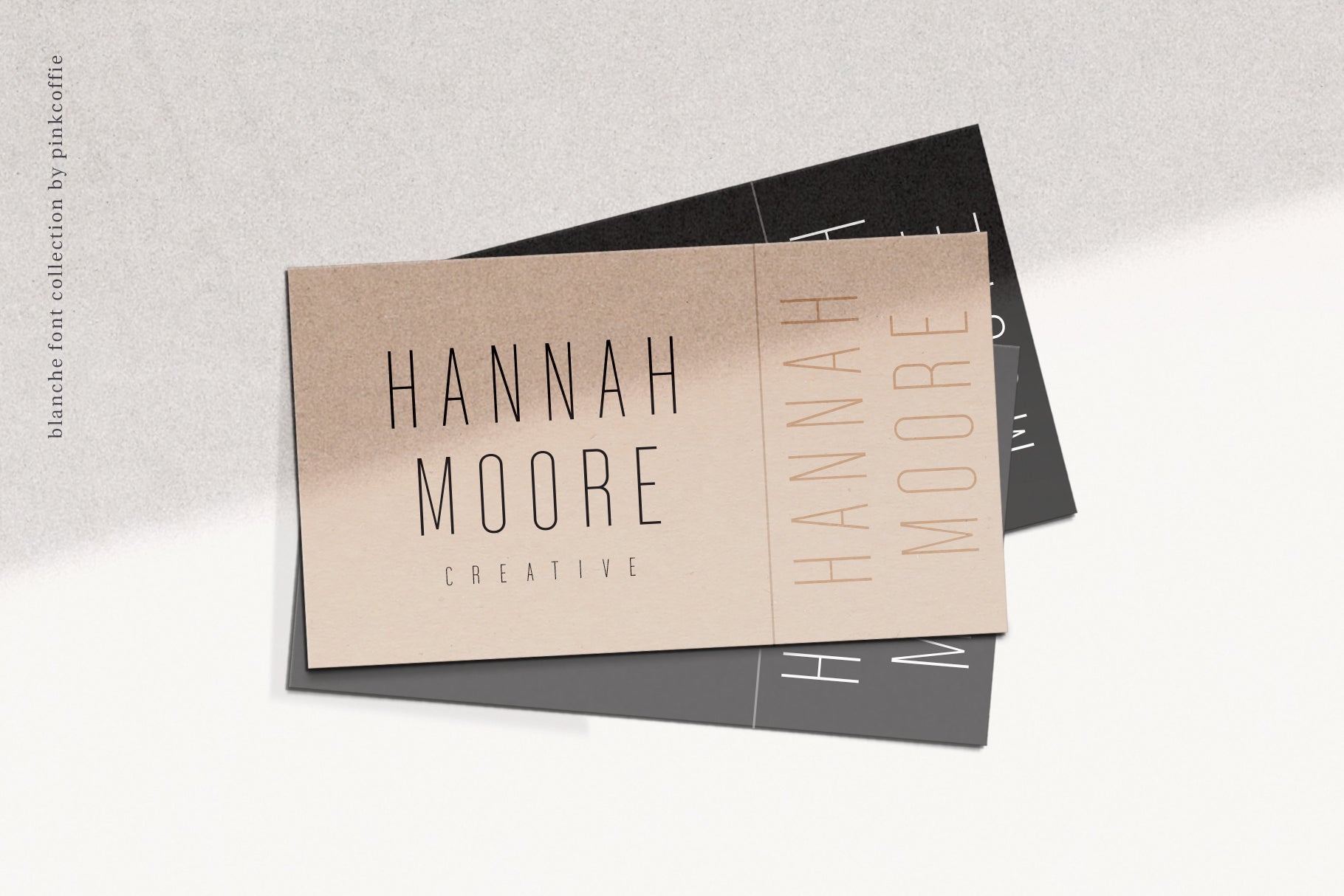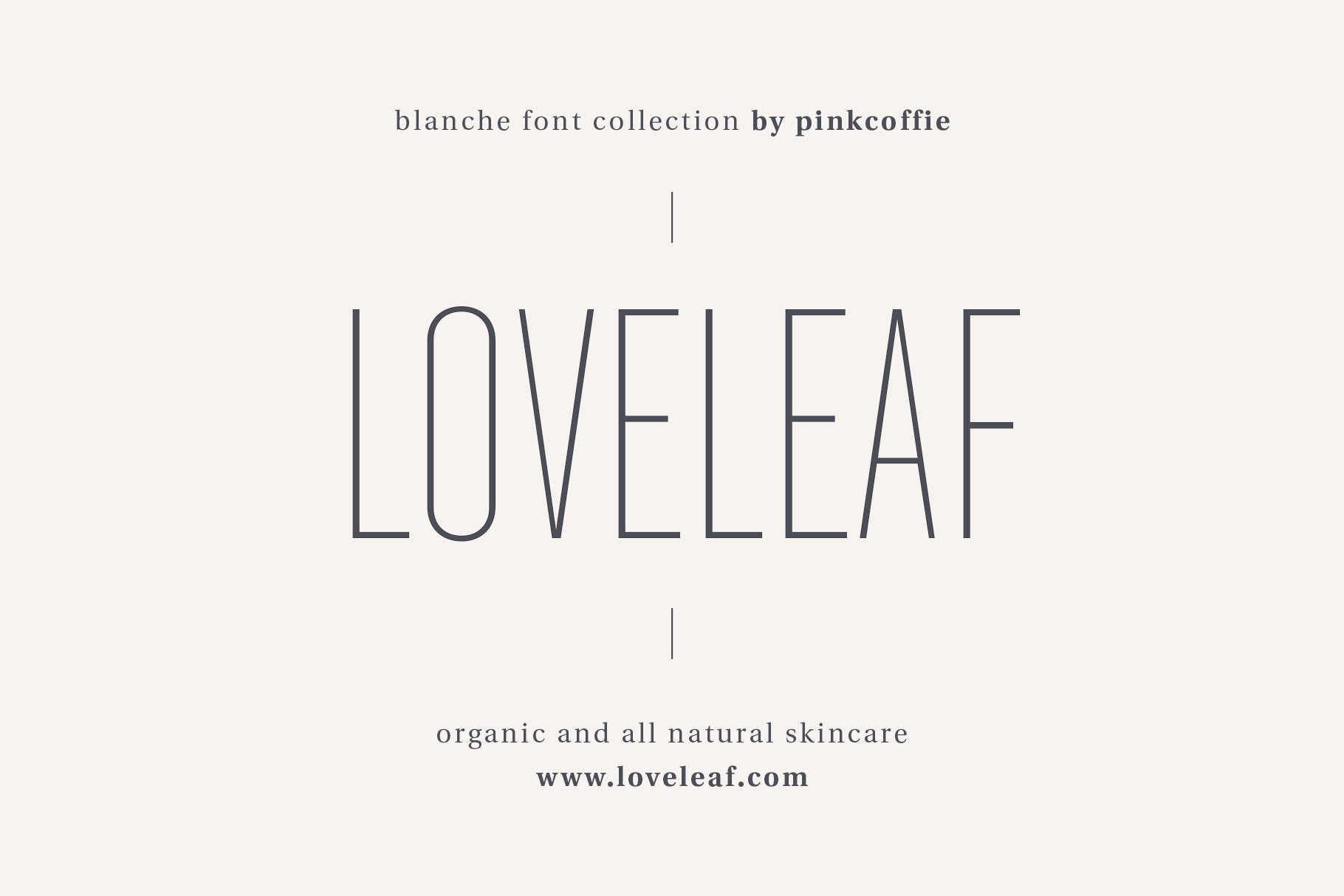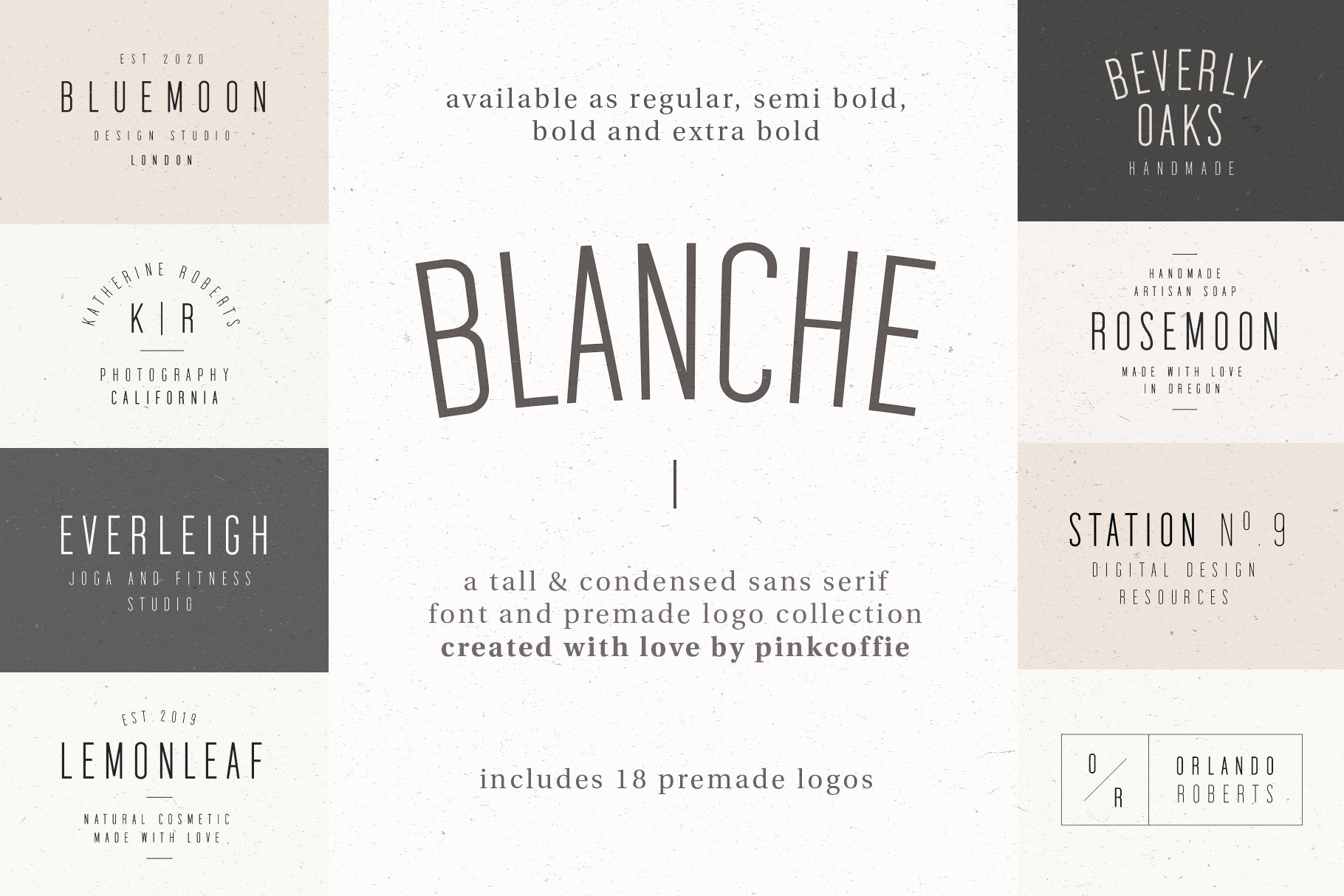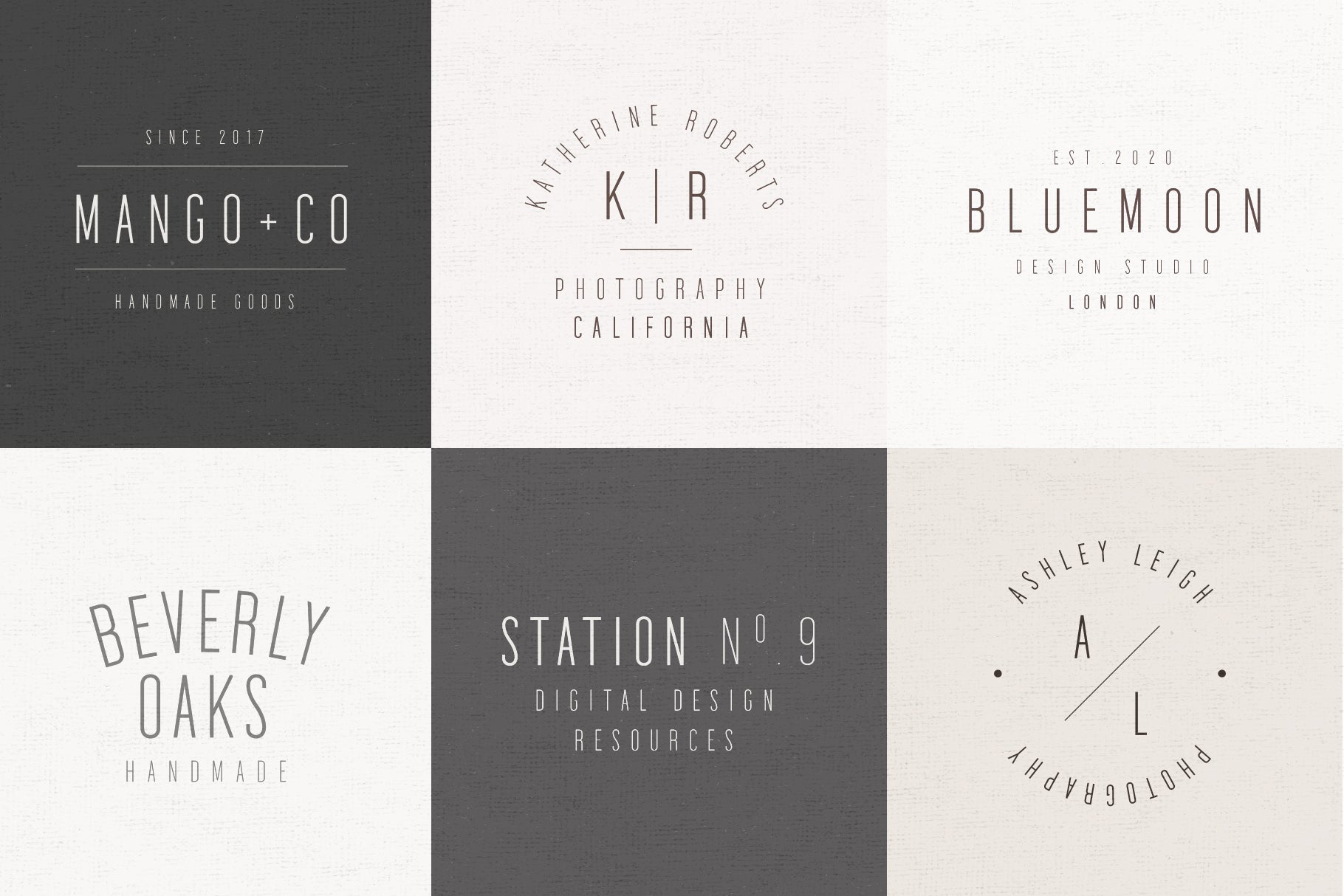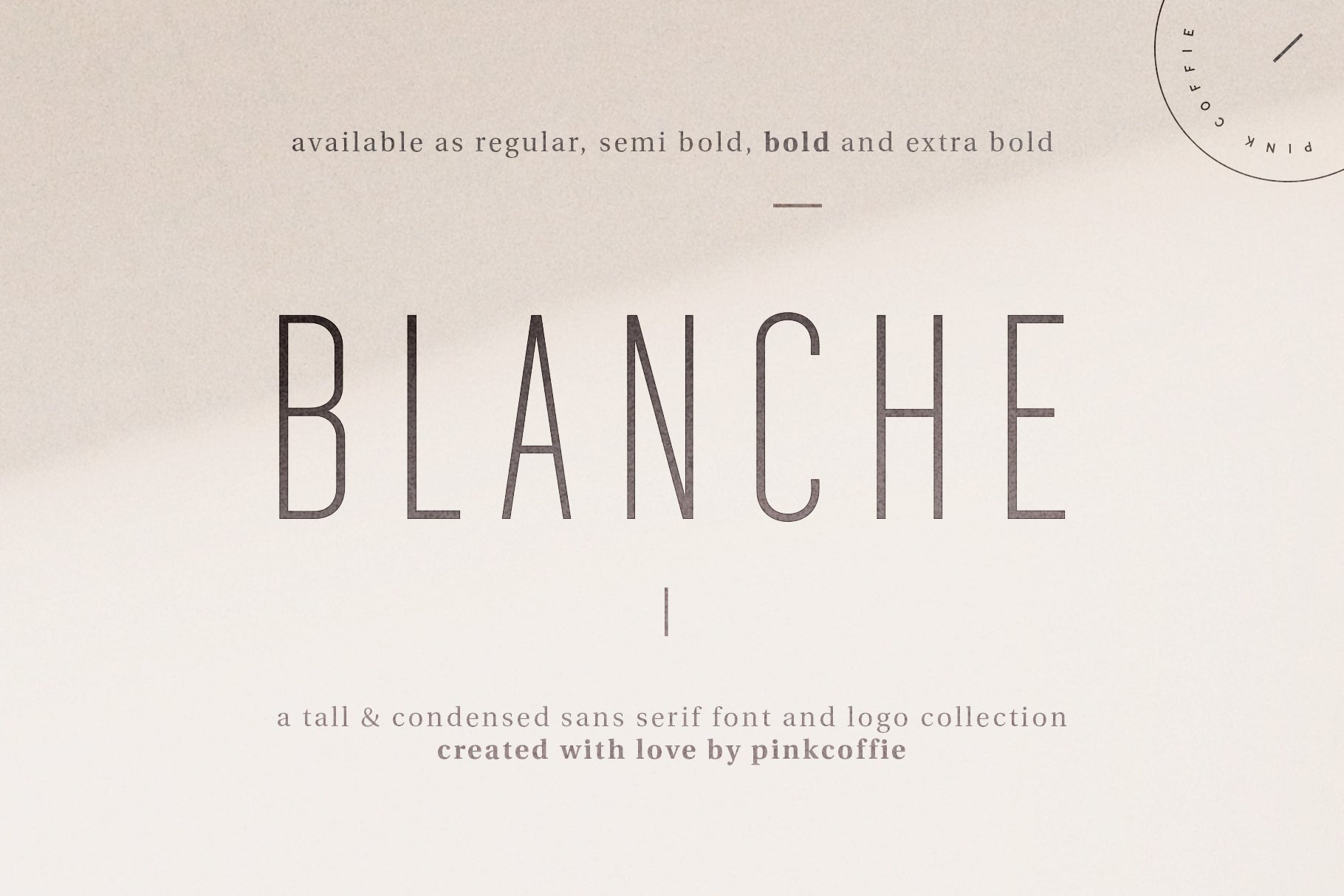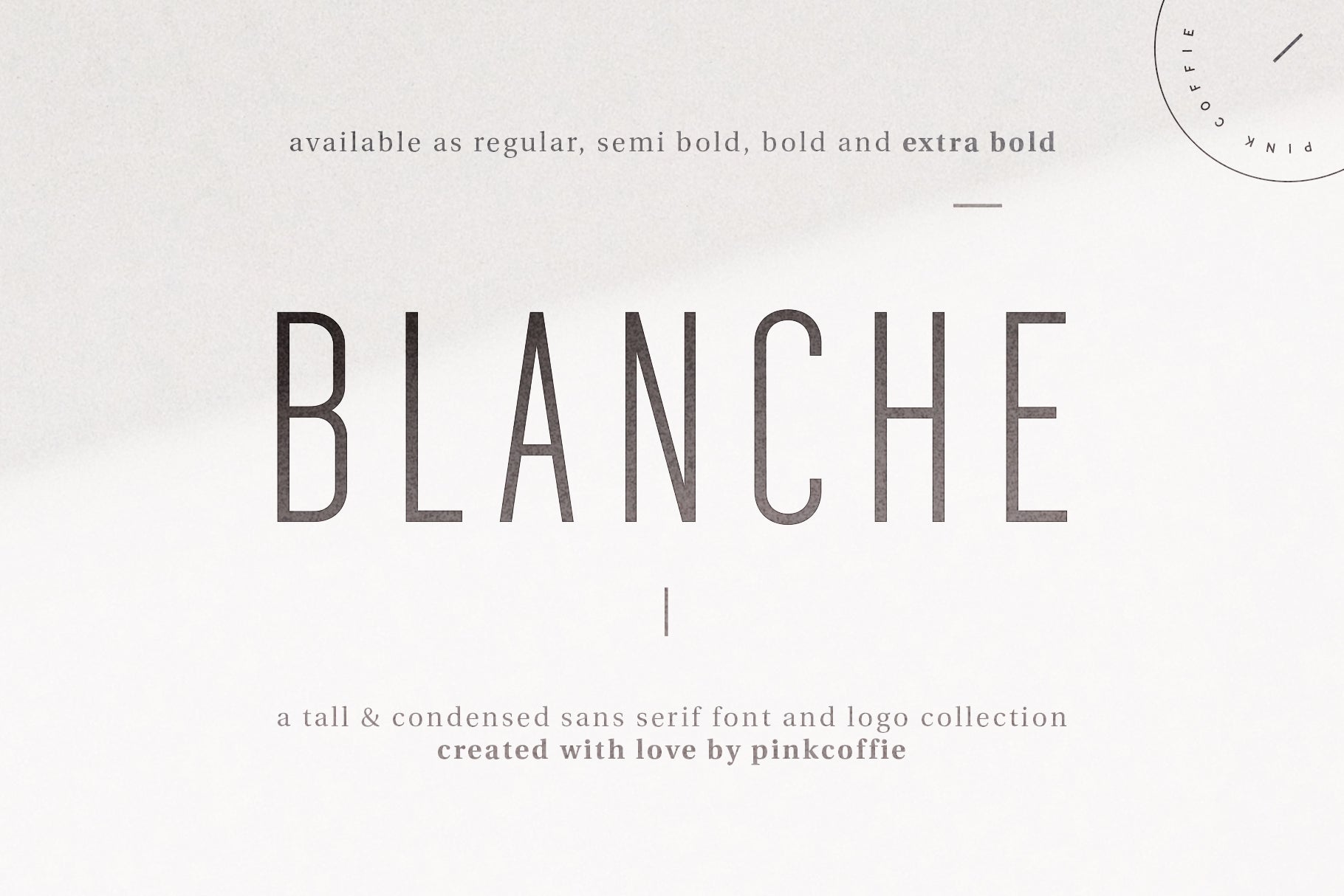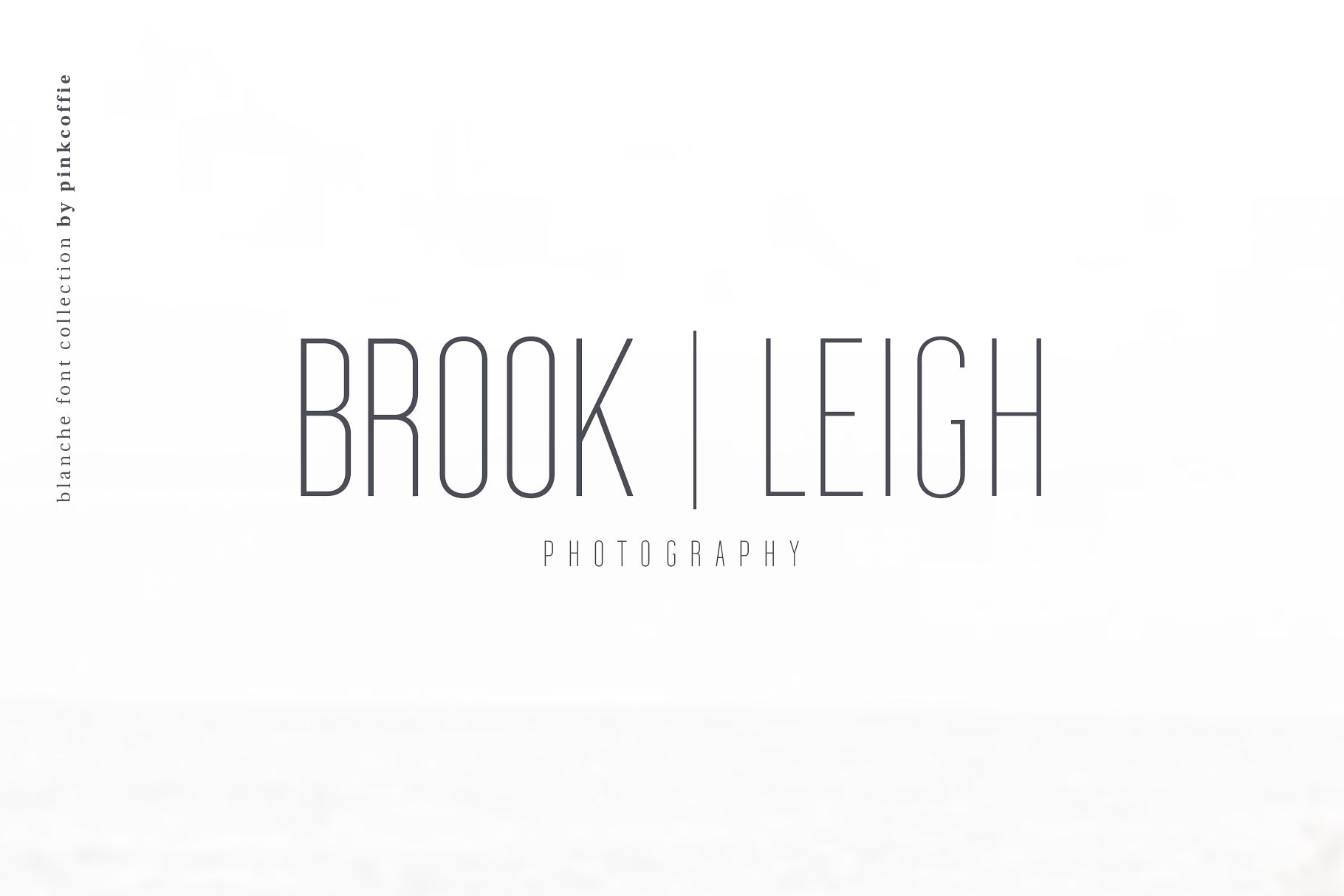
Say hello to Blanche - a modern sans serif font and premade logo collection inspired by trendy minimal branding and modern cosmetic packaging.
The Blanche collection features a tall, condensed sans serif font in four handy weights ( regular, semi-bold, bold, and extra bold ) and 18 ready-to-use, bonus logo templates, which come as single vector EPS, Illustrator Ai, and Photoshop PSD files.
As you might have noticed, all Blanche fonts come as pretty condensed and tight spaced, but you can achieve different looks by adjusting the font tracking in Photoshop, Illustrator, or similar software that allows you to change the type settings - similar to what I did in my previews and logo templates. :)